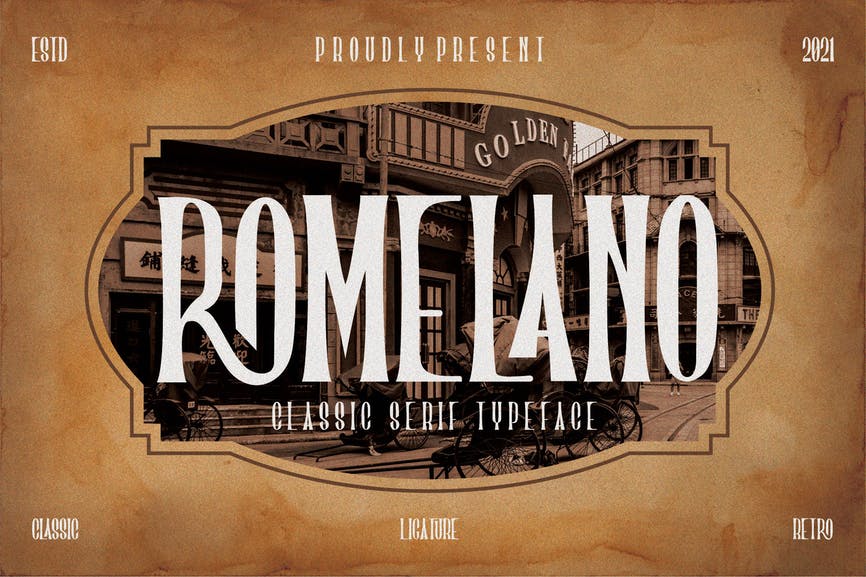
Romelano – Serif Font
Romelano is new serif exploration with reversed contrast and unique shapes. Inspired by the historical books and vintage signage. Romelano is classically elegant to be applied to formal designs and can be used for the headline and long text.
This font also has some alternates characters to give you some options in making the design. You can use Romelano for editorial, label, invitation, newspaper, books, poster, flyer, signboard, logo, branding, merchandise, apparel, and many more!
• Uppercase
• Lowercase
• Numbers & symbols
• Ligatures